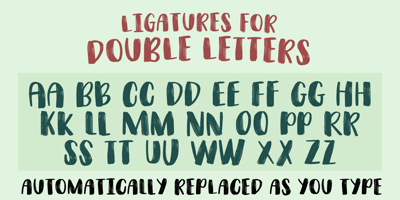
Slughals
Slughals font
Slughals Font Family was designed by published by PizzaDude.dk. Slughals contains 1 styles and family package options. Slughals is danish for someone who eats to much in a kind of greedy way. It came to my mind that “slug” (“swallow” in danish) is snail in English. It lead my mind to the brushtraces of the font, could look like traces from a snail/slug. Slughals has ligatures for most double letters and two fancy swashes for the letters r and k.